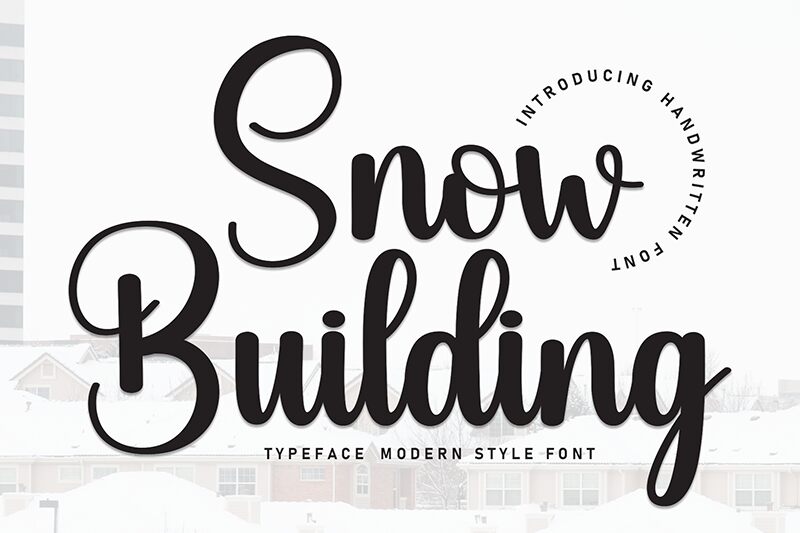
Snow Building font is a casual script typeface designed by Scratchones as a free font for personal use. Inspired by penmanship handwriting, the letters are expressive with a flowing and casual style. What stands out overall of its most dominant visual feature is its long curvy lines. This is together with contrasting strokes in delicate and thick weights that enhance every text. Style-wise, the font is elegant and sophisticated, intended to add style and a modern appearance to any potential design project.
Make the best out of Snow Building by using this modern script font in your brand design, titles, and typography. It is best used on packaging and labels or printed on product covers and boxes. The typeface is also the best choice for personal design projects such as digital invitations, logos, or personal social media posts. In all cases, it will ensure the delivery of an elegant appearance and stylish writing.